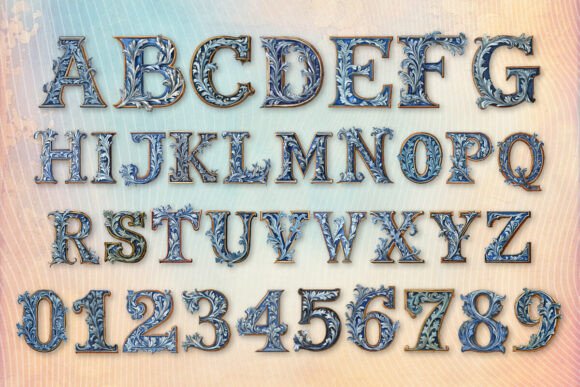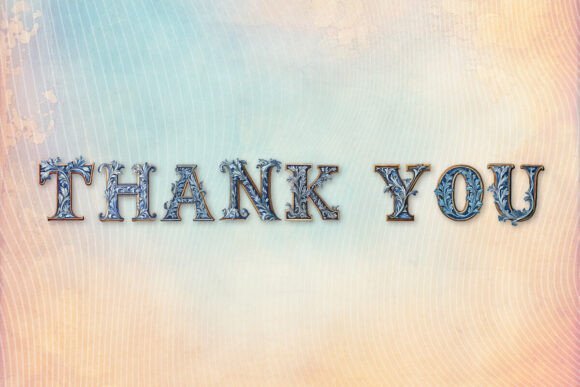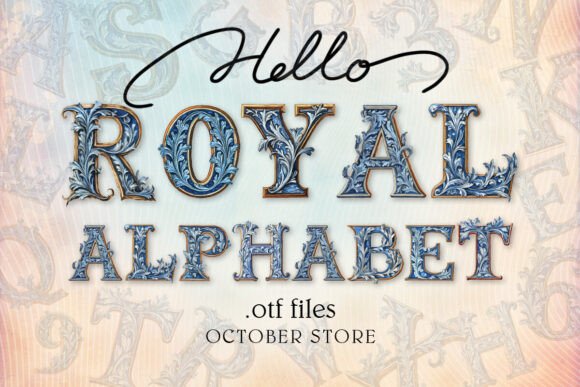
Introducing the Blue Royal Alphabet Font: A Regal Addition to Your Design Arsenal
Have you ever been in the midst of working on a design project, only to find yourself stuck on the perfect font? I recall a particularly frustrating experience where I was tasked with creating a luxurious brand identity for a high-end client. The brief was clear: the design had to exude opulence, sophistication, and a hint of regality. As I scoured the internet for the perfect typeface, I stumbled upon the Blue Royal Alphabet Font. It was as if the design gods had smiled upon me, for this font embodied everything I was looking for and more.
The Good, the Great, and the Luxurious
- ✨ Luxurious Details: The Blue Royal Alphabet Font is a masterclass in ornate detailing. Its opulent features instantly elevate any text, making it perfect for projects that demand a touch of luxury.
- ✅ Versatility: This font is incredibly versatile, suitable for a wide range of design projects from branding and advertising to packaging and editorial design.
- 💫 Elegant Aesthetic: The font’s elegant allure is undeniable, capable of dignifying any content with a regal touch that’s hard to achieve with standard typefaces.
A Few Quirks to Keep in Mind
The Inspiration Behind the Blue Royal Alphabet Font
While the actual origins of the Blue Royal Alphabet Font remain shrouded in mystery, it’s easy to imagine a designer inspired by centuries-old royal manuscripts and the intricate details found in opulent palaces. The font likely began as a passion project, a desire to bottle the essence of luxury and make it accessible to designers around the world. Whether or not this story is true, the Blue Royal Alphabet Font undoubtedly captures the splendor and richness of royalty.
With its luxurious details, elegant aesthetic, and compatibility with a range of design software, the Blue Royal Alphabet Font is poised to become a staple in the toolkit of designers seeking to imbue their projects with a touch of royalty. Whether you’re crafting a brand identity, designing packaging, or simply looking to elevate your typography, this majestic font is sure to leave a lasting impression.